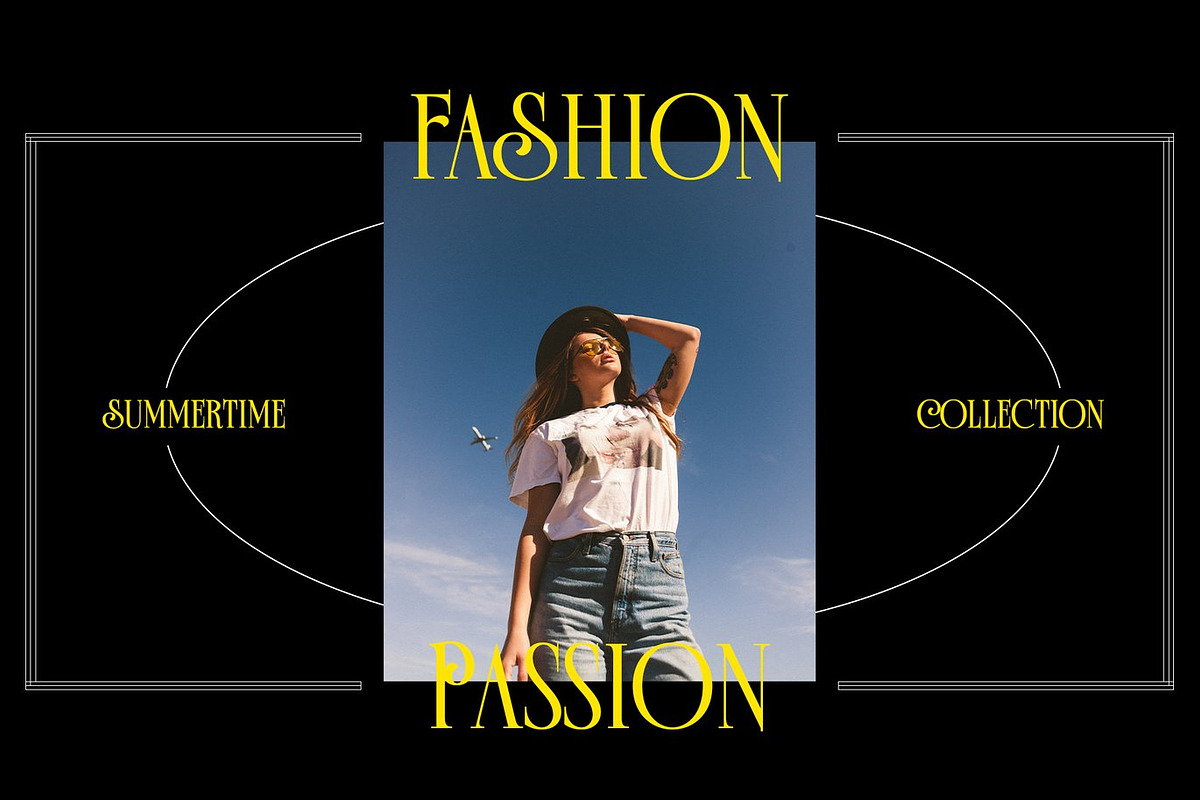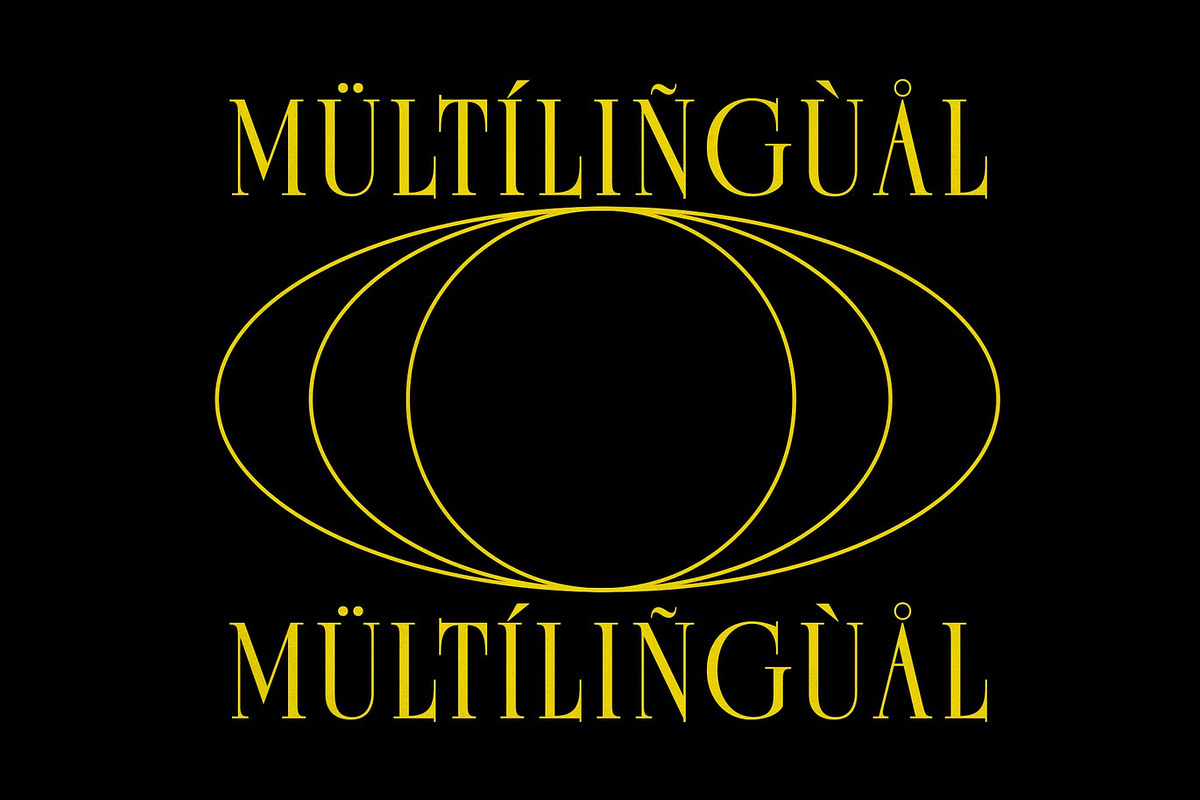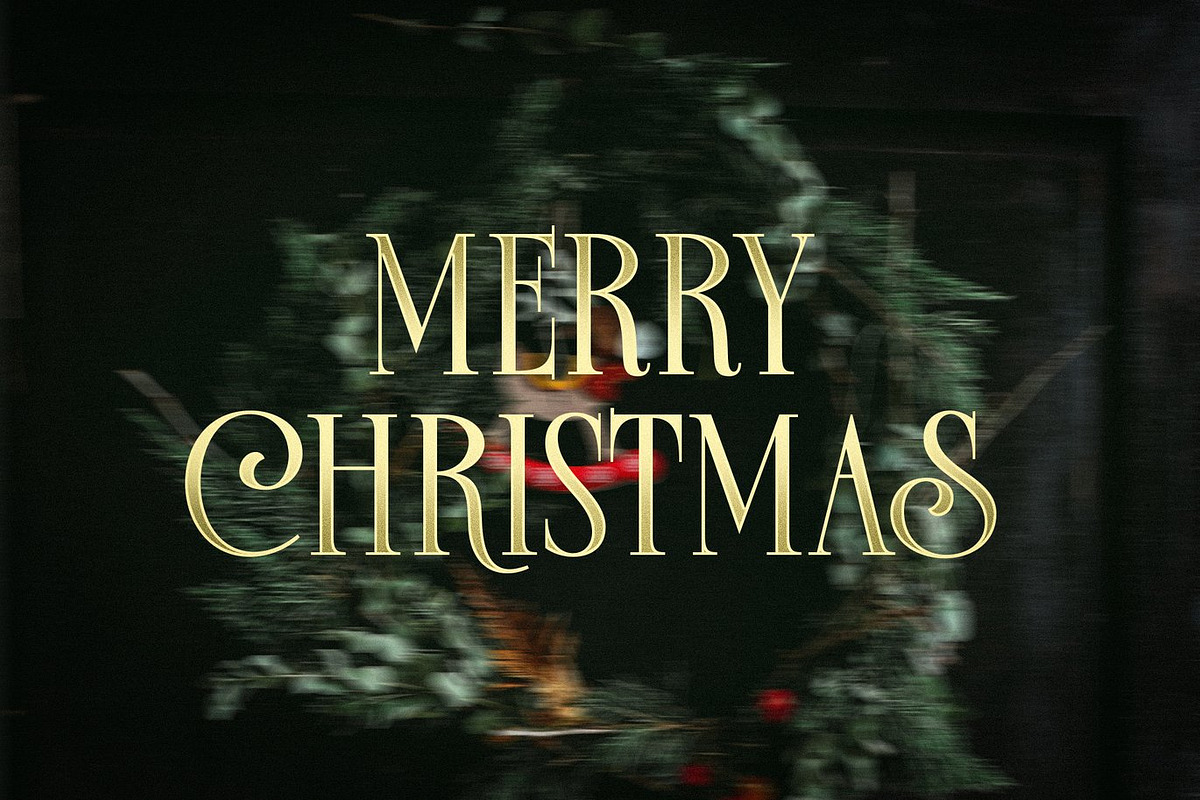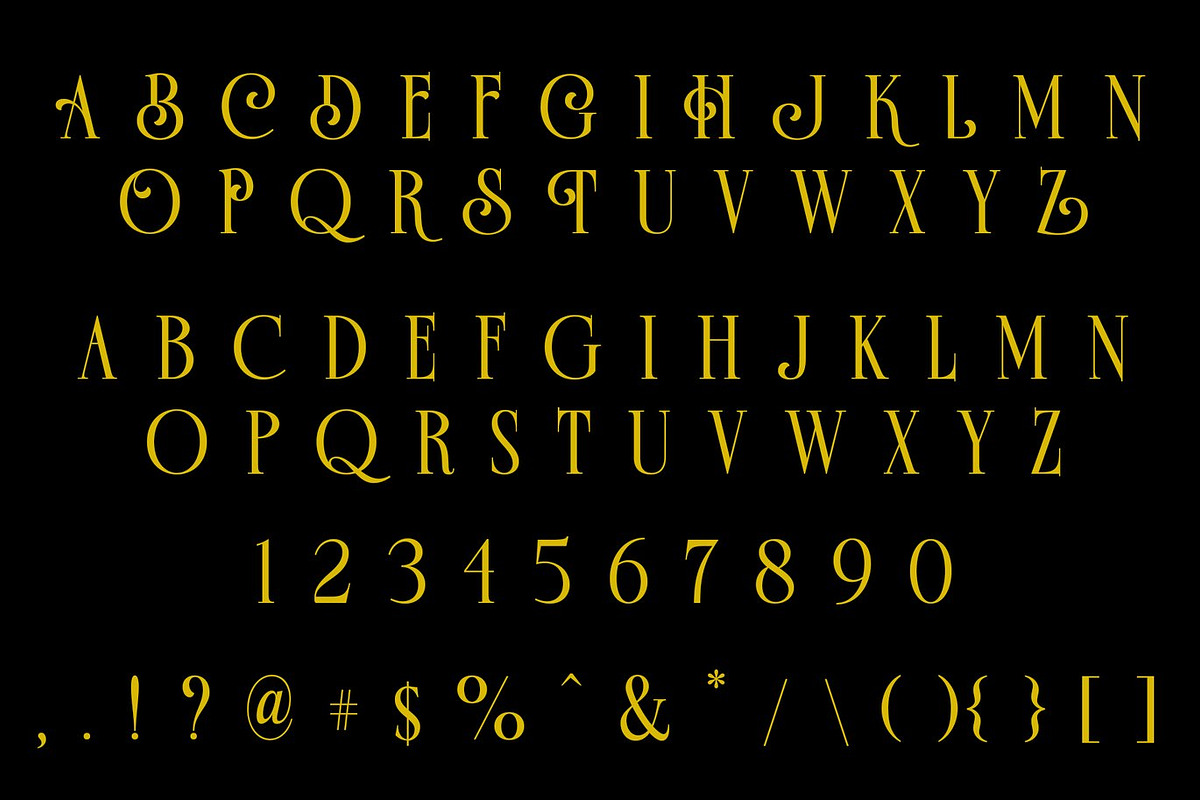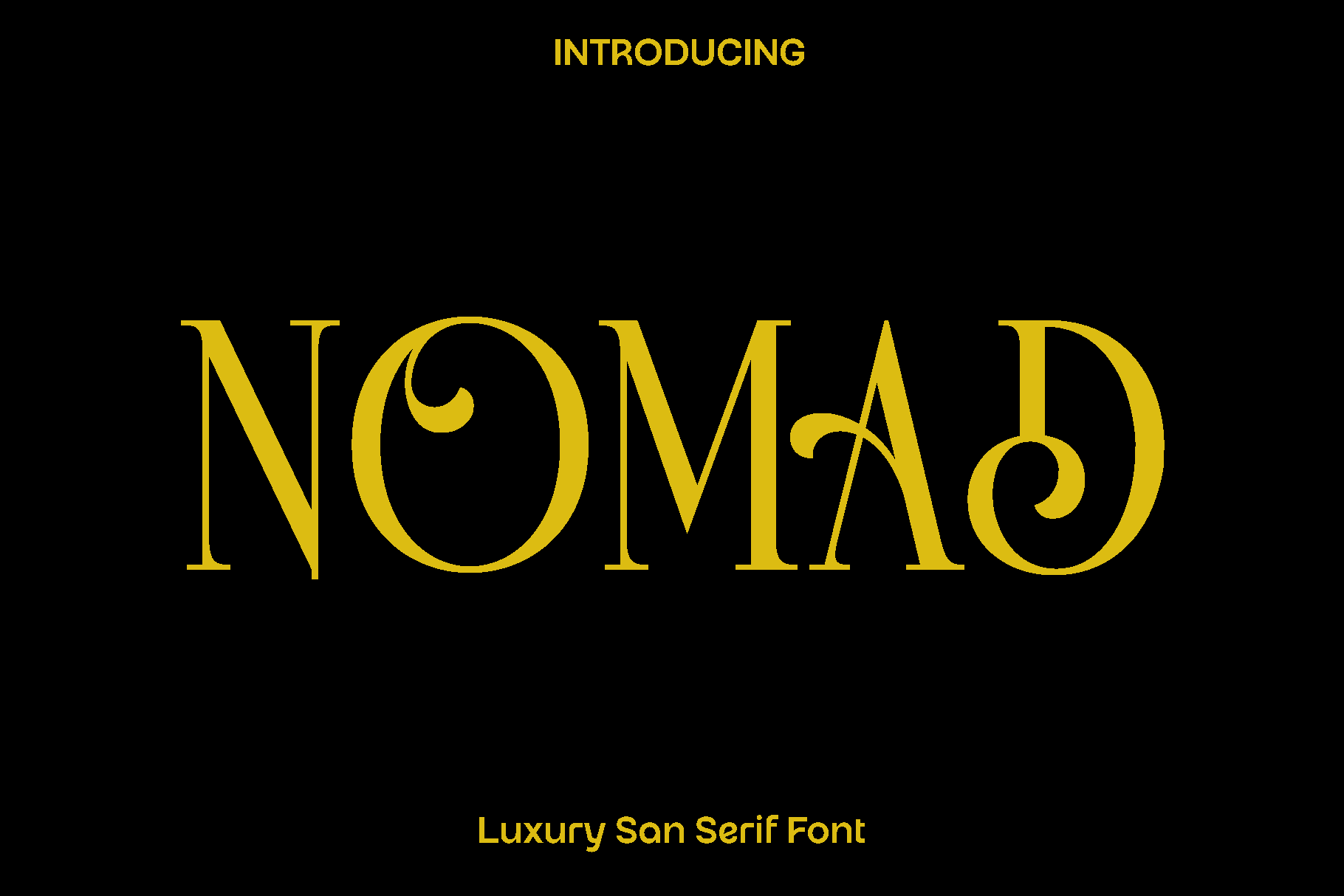
Nomad - Luxury San Serif Font
Nomad is a modern sans serif font designed with simplicity, elegance, and functionality at its core. Inspired by clean design principles and contemporary typography, Nomad brings a refined aesthetic that feels both minimal and expressive. Its carefully crafted uppercase characters feature subtle stylistic touches that add personality, while the lowercase maintains clarity and balance for smooth readability.
This font is created for designers who value versatility and timeless style. Nomad works beautifully across a wide range of applications including branding, logos, editorial layouts, social media content, websites, and packaging. Its clean structure makes it ideal for both headlines and body text, allowing your designs to communicate with confidence and sophistication.
Nomad feels modern, calm, and professional, making it a reliable choice for projects that require a polished and elegant appearance. Whether you are building a brand identity or designing creative visuals, Nomad adapts effortlessly and enhances the overall composition with its subtle charm.
Designed to be both practical and visually appealing, Nomad offers a seamless experience for creatives who want a font that is easy to use while still delivering strong visual impact.
Nomad Font Features: • Stylistic uppercase characters • Clean and readable lowercase • Numerals and functional characters • Multilingual support • Includes: .otf .ttf • Sans serif style suitable for modern design